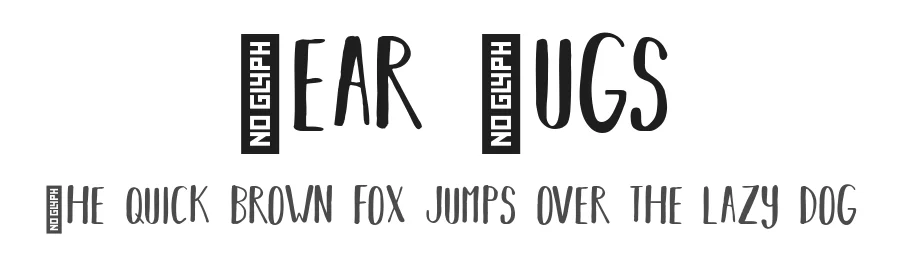
About Pacific Break Font
Pacific Break
Pacific Break supports 209 languages.
Pacific Break Font is a decorative font that shines as a display or heading face. Pair it with a clean sans-serif or serif font for body text β the contrast creates a clear hierarchy while the two styles stay balanced and easy to read.